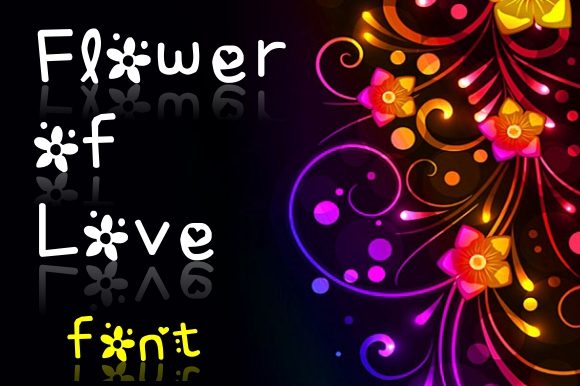
Embrace the beauty of nature and add a touch of whimsy to your designs with the Flower of Love Font, a charming decorative font family designed with love by CutieFont. This font exudes a feeling of joy and happiness, making it the perfect choice for any project that needs a playful and cheerful touch.
Transport yourself to a field of wildflowers with every letter you type, as the Flower of Love Font blooms with delicate petals and soft, flowing lines. Its unique design captures the essence of springtime, adding a fresh and vibrant touch to your projects. Whether you're creating invitations, greeting cards, or social media posts, the Flower of Love Font will bring a smile to the faces of your readers.
Indulge in the sweetness of life with the Flower of Love Font. Its intricate details and playful curves evoke a sense of nostalgia and warmth, making it the ideal choice for projects that aim to evoke a sense of happiness and positivity. Use it to create unique logos, eye-catching posters, or charming website designs that will captivate your audience.
With the Flower of Love Font, you'll have the power to turn your creative visions into reality. Its versatile style makes it suitable for a wide range of projects, from personal stationery to professional branding materials. Unleash your imagination and let the Flower of Love Font guide you towards stunning designs that will leave a lasting impression.